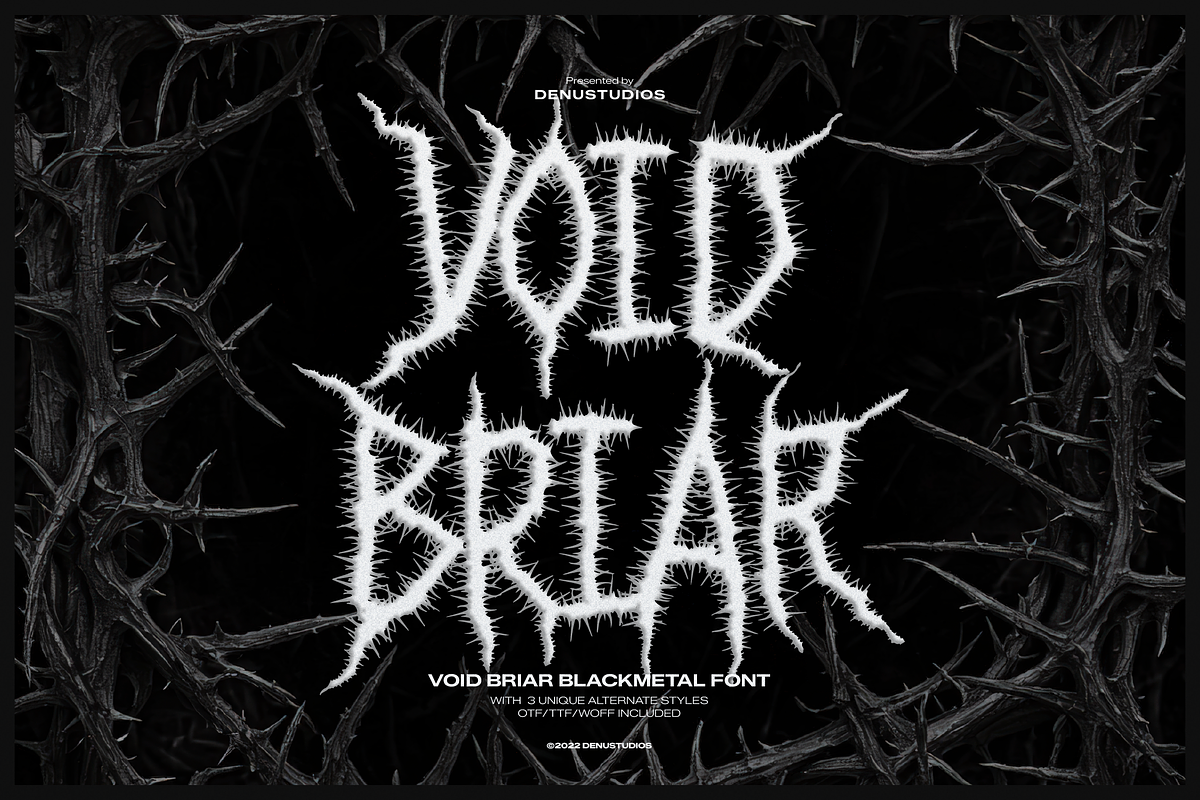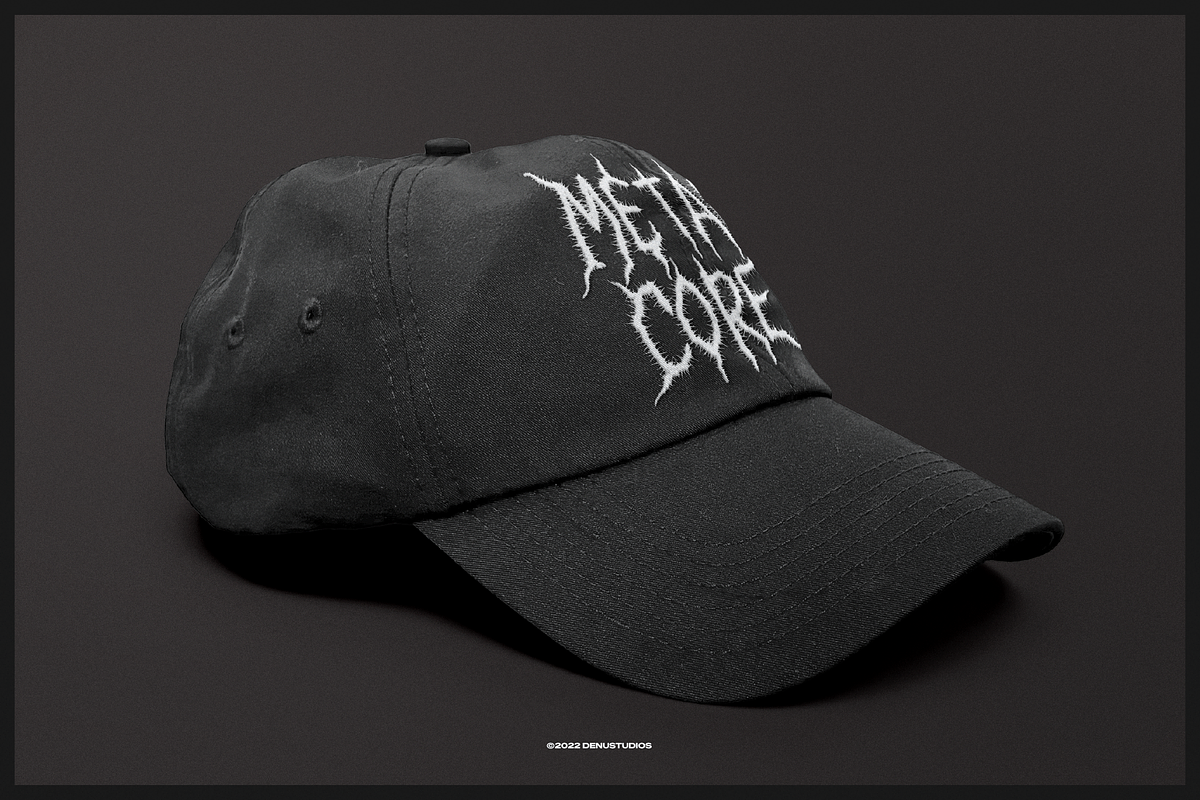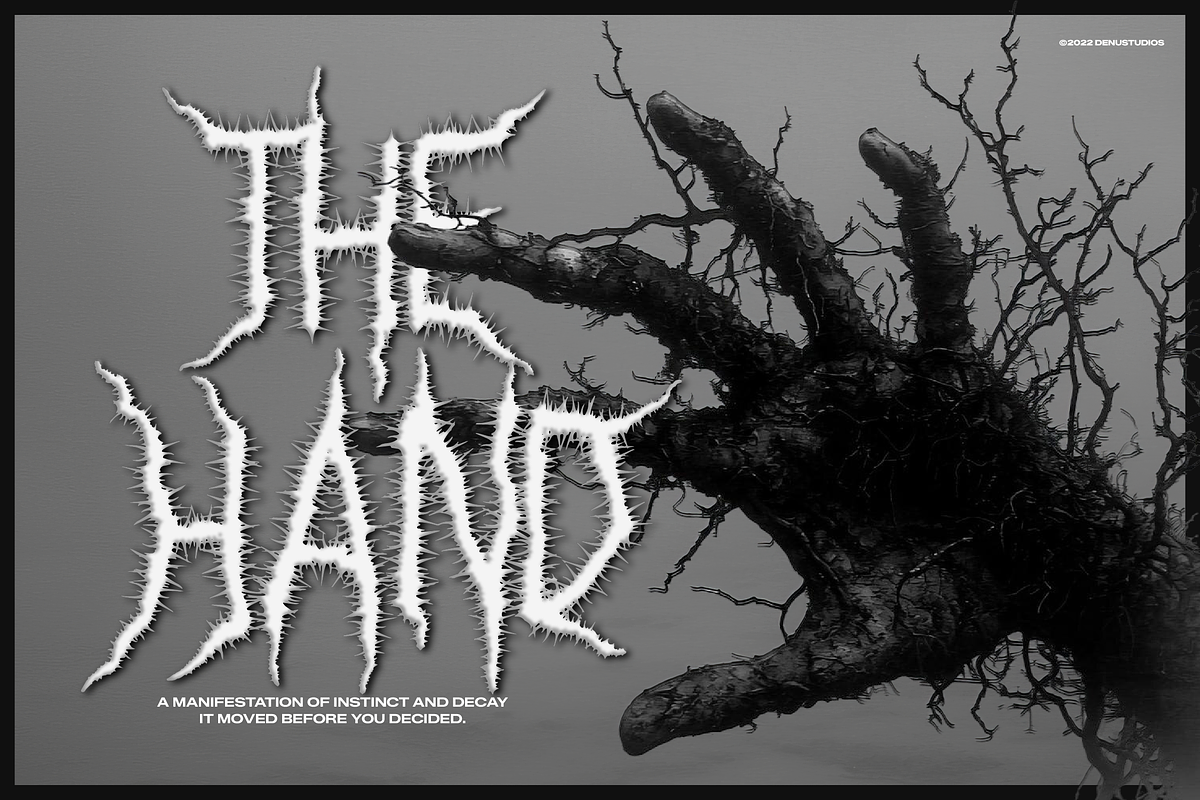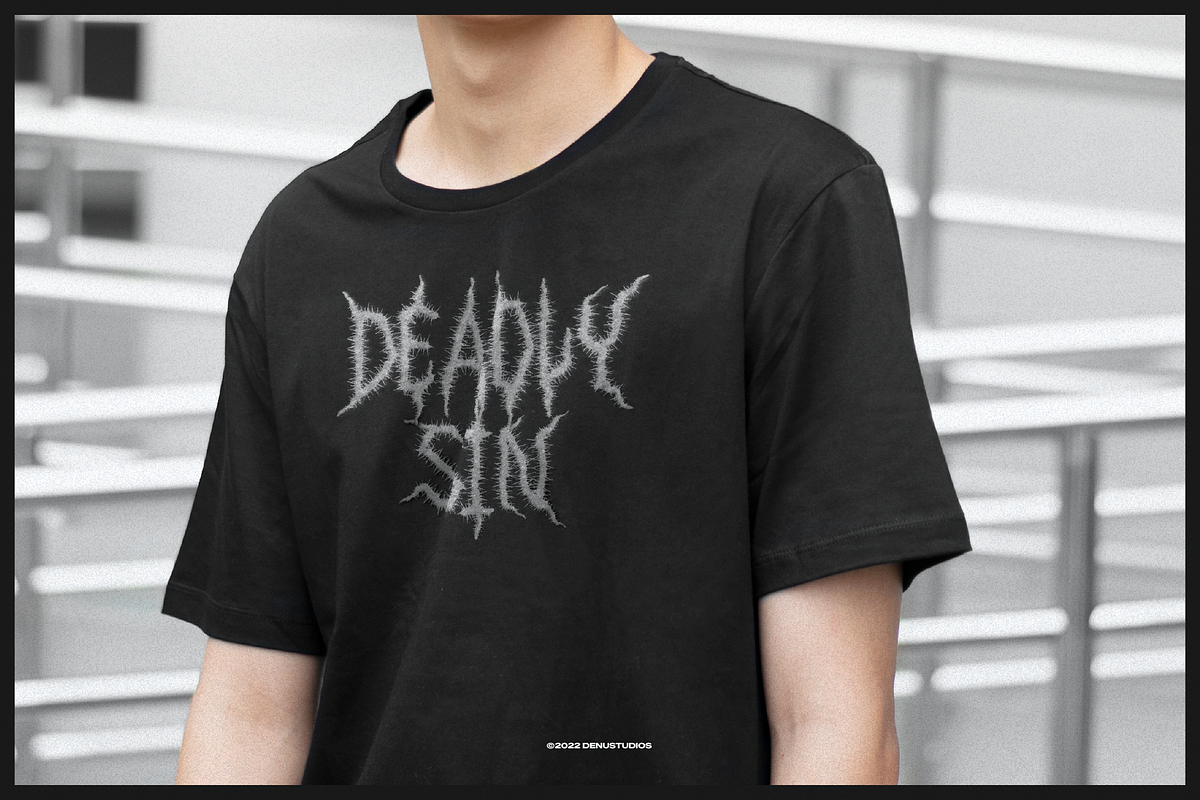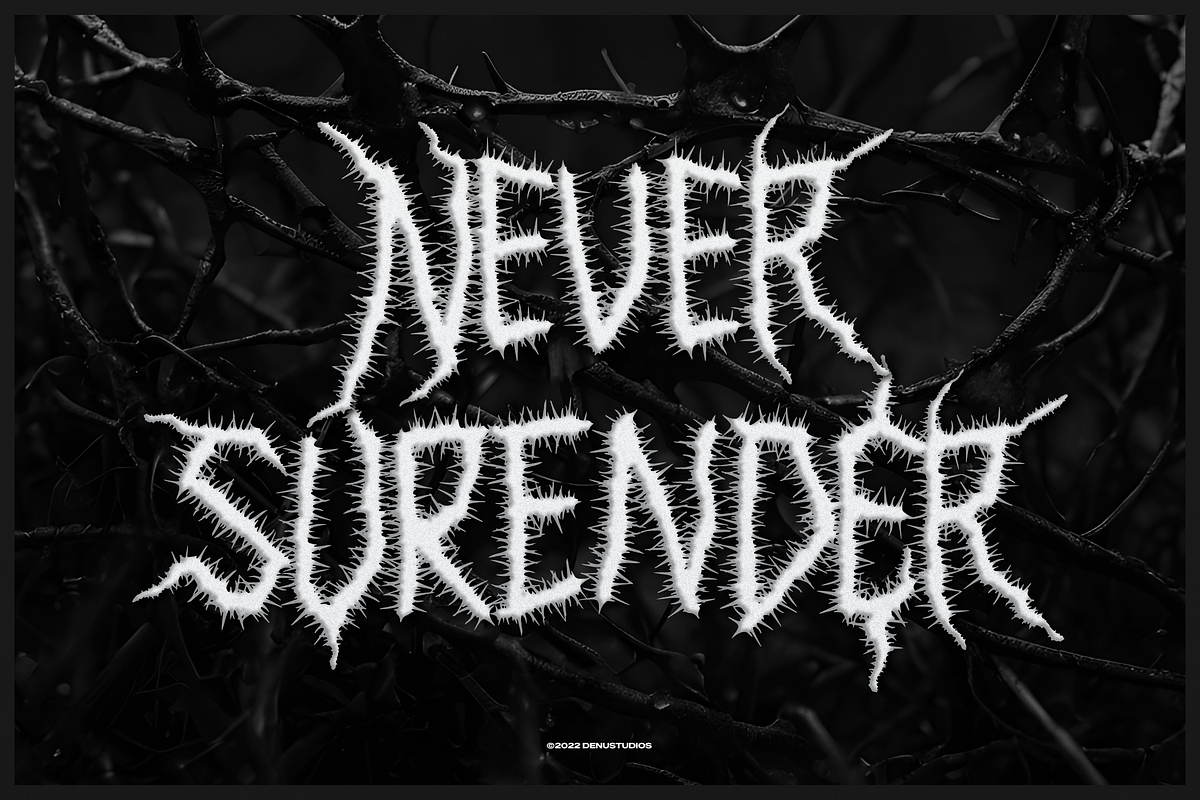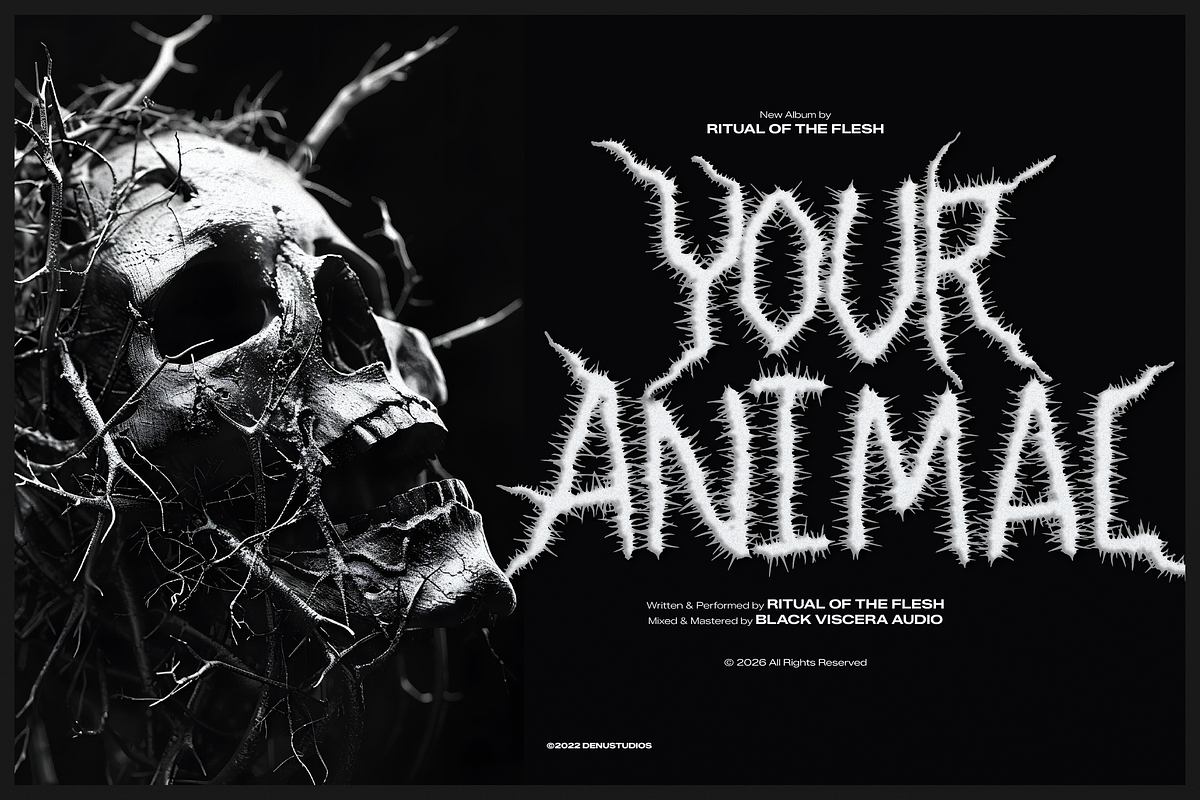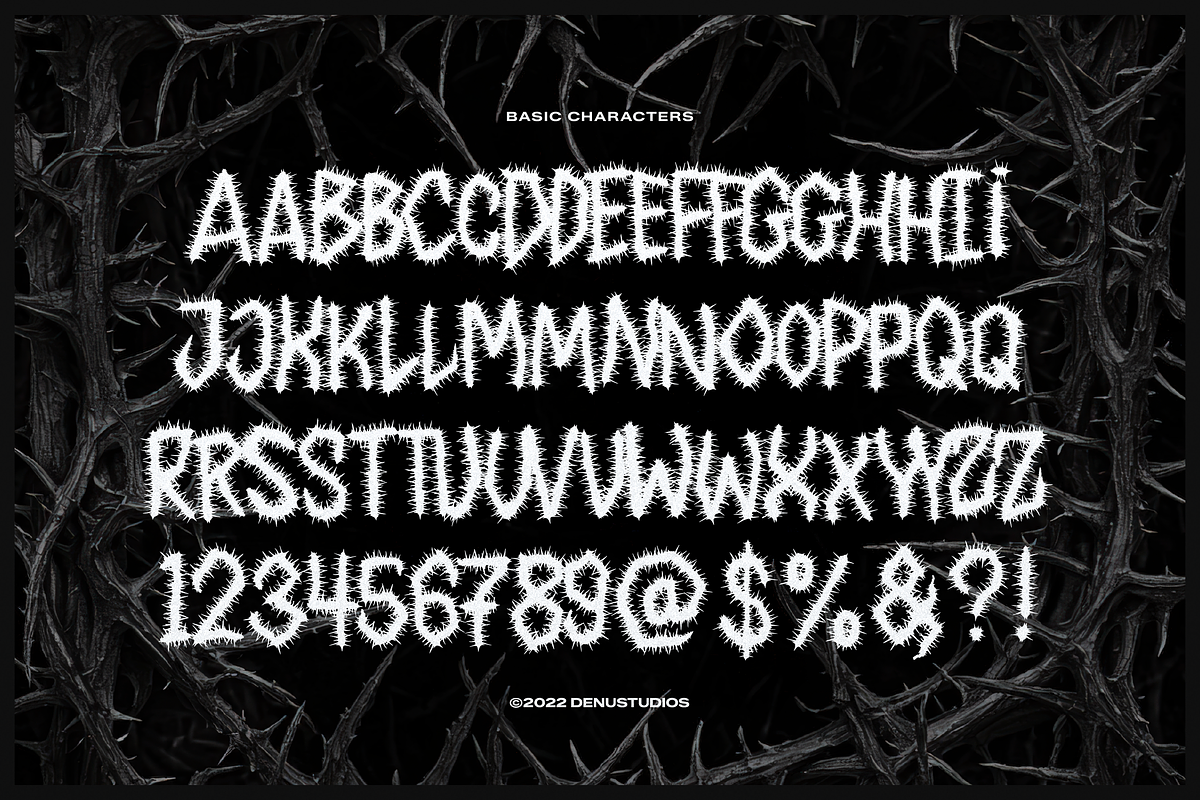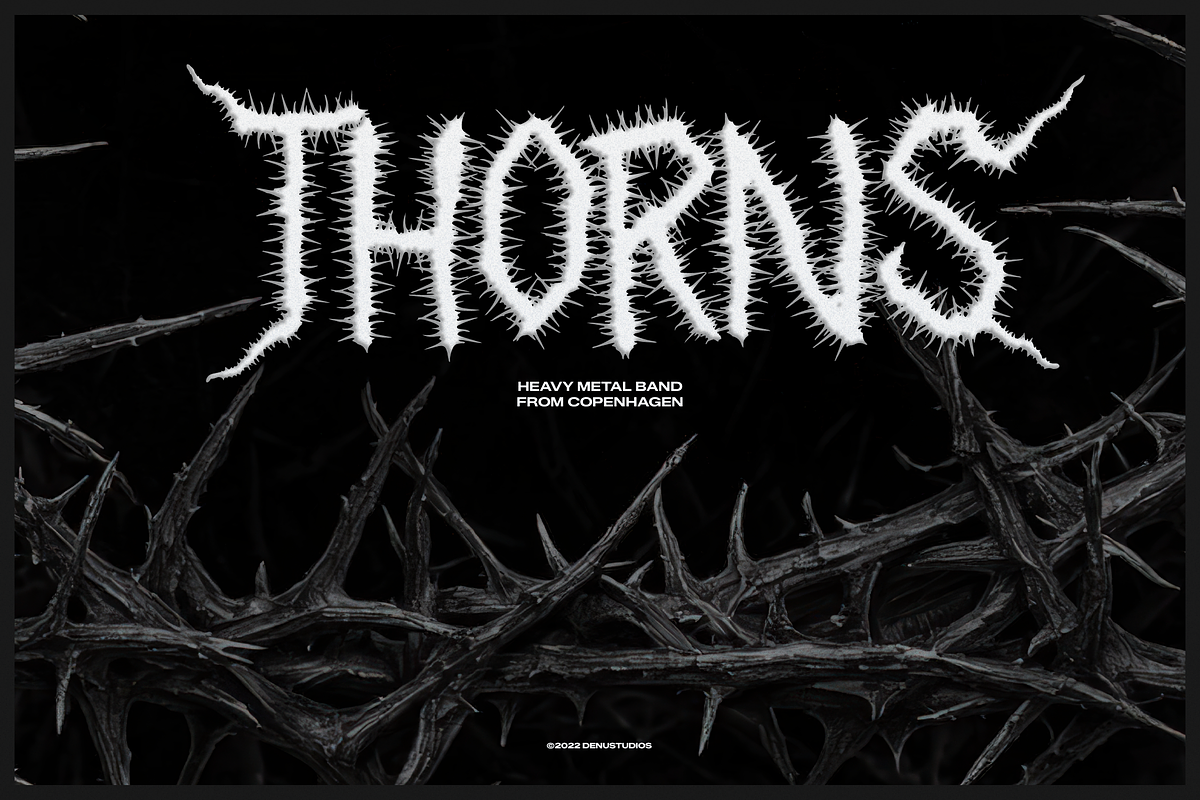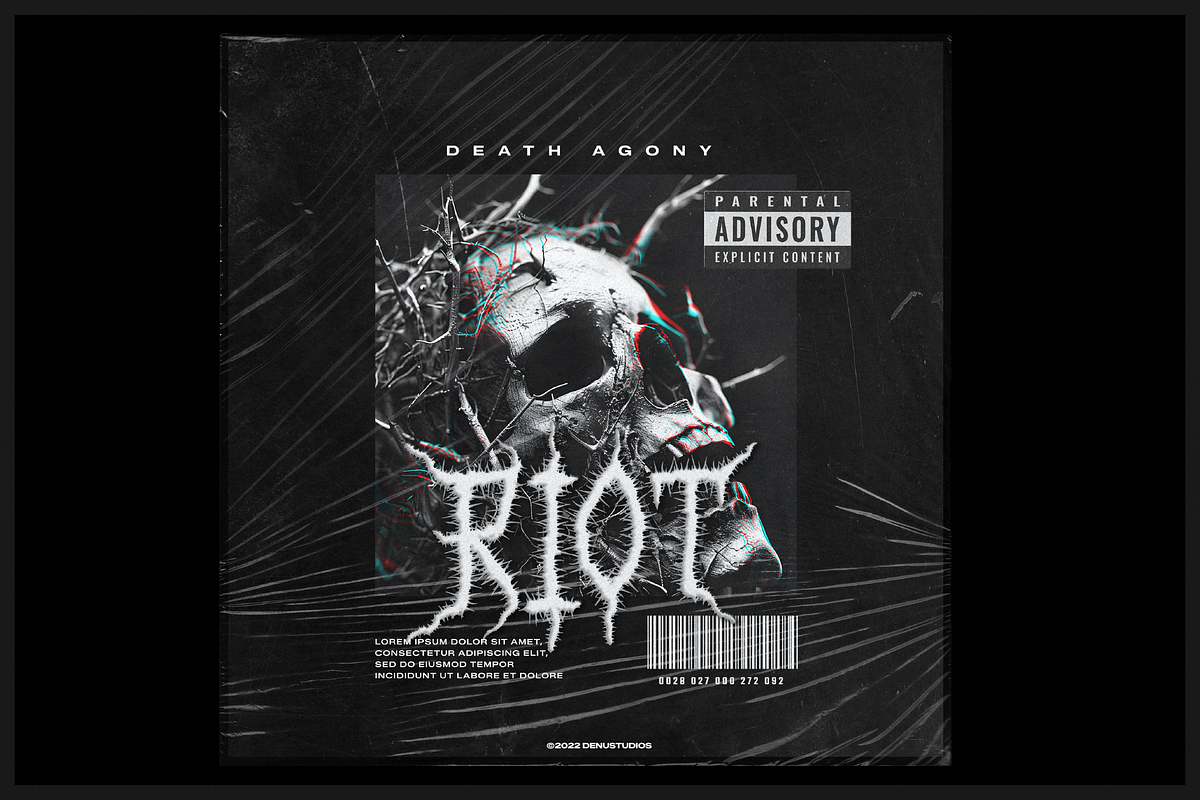
Void Briar | Black Metal Font
Void Briar | Black Metal Font, from Denustudios, suitable for any projects such as: logos, branding projects, homeware designs, product packaging, mugs, quotes, posters, shopping bags, t-shirts, book covers, name card, invitation cards, greeting cards, label, photography, watermark, special events, and all your other lovely projects that need a Black Metal taste.